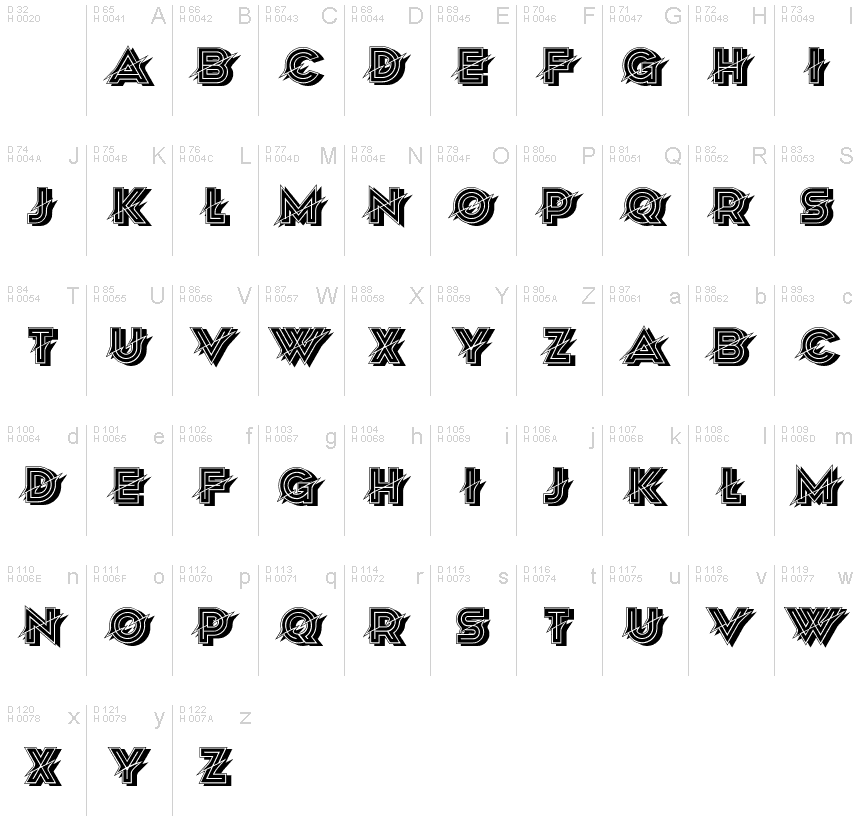
Unordentlich Filled Regular
Unordentlich Filled is a cool distorted typeface designed by Vladimir Nikolic.
"Unordentlich" font comes in Regular and Filled variant!